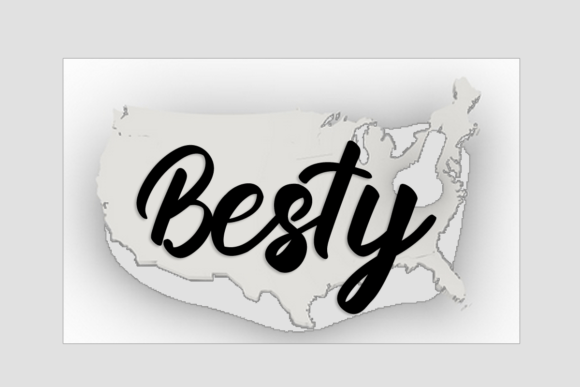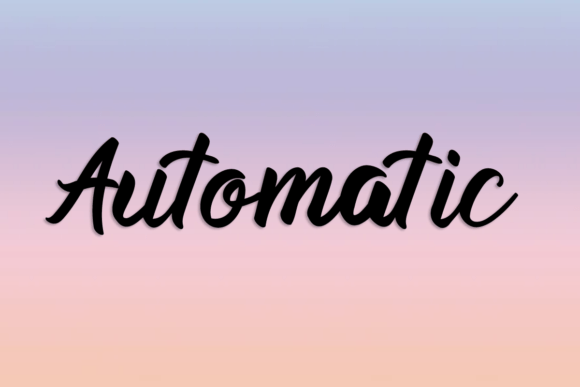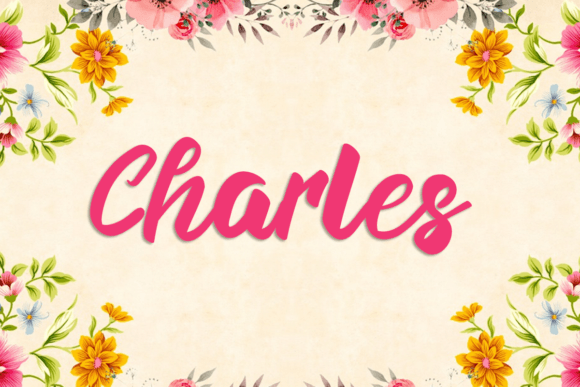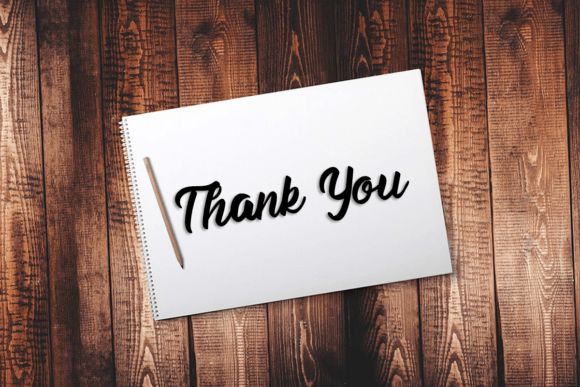
Introducing Empire Font: The Sweet and Lovely Handwritten Script Font
Are you looking for a font that can add a touch of elegance and sophistication to your designs? Look no further than Empire Font, a beautiful handwritten script font that is perfect for a variety of design projects. In this article, we’ll take a closer look at Empire Font, its features, and how you can use it to create stunning designs.
What is Empire Font?
Empire Font is a lovely and sweet handwritten script font that is designed to add a touch of warmth and personality to your designs. This gentle font is perfect for creating eye-catching logos, branding, and quotes that will leave a lasting impression on your audience. With its elegant and flowing script, Empire Font is sure to make your designs stand out from the crowd.
Key Features of Empire Font
So, what makes Empire Font so special? Here are some of its key features:
- Handwritten Script: Empire Font is a handwritten script font that is designed to look natural and effortless. Its flowing script and elegant lettering make it perfect for creating beautiful designs.
- Versatile: Empire Font is a versatile font that can be used for a variety of design projects, from logos and branding to quotes and social media graphics.
- Elegant and Sophisticated: Empire Font has an elegant and sophisticated feel that is perfect for creating high-end designs.
- Easy to Read: Despite its elegant script, Empire Font is easy to read and understand, making it perfect for designs that require a clear and concise message.
How to Use Empire Font
Empire Font is a versatile font that can be used for a variety of design projects. Here are some ideas to get you started:
- Logos and Branding: Use Empire Font to create stunning logos and branding materials that will help your business stand out from the crowd.
- Quotes and Social Media Graphics: Empire Font is perfect for creating inspirational quotes and social media graphics that will engage your audience.
- Invitations and Stationery: Use Empire Font to create beautiful invitations and stationery that will add a touch of elegance to your correspondence.
- Web Design: Empire Font can be used for web design projects, such as headings and titles, to add a touch of sophistication to your website.
Tips for Using Empire Font
Here are some tips for using Empire Font effectively:
- Use it Sparingly: Empire Font is a elegant and sophisticated font, so use it sparingly to avoid overwhelming your design.
- Pair it with Other Fonts: Empire Font can be paired with other fonts to create a unique and interesting design.
- Experiment with Colors: Empire Font looks great in a variety of colors, so experiment with different colors to find the one that works best for your design.
Empire Font is a beautiful handwritten script font that is perfect for designers and crafters who want to add a touch of elegance and sophistication to their designs. With its elegant and flowing script, Empire Font is sure to make your designs stand out from the crowd. Whether you’re creating logos and branding materials, quotes and social media graphics, or invitations and stationery, Empire Font is the perfect choice.